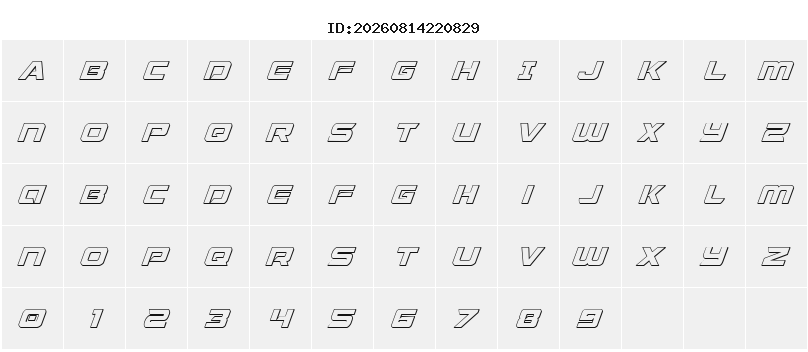
Starduster 3D Italic Preview
• Font Name: Starduster 3D Italic
• Full Font Name: Starduster 3D Italic
About Starduster 3D Italic.ttf
Starduster 3D Italic.ttf is a modern, elegant sans-serif font designed for ultimate readability and visual harmony. Perfect for branding, headlines, web design, and print materials.